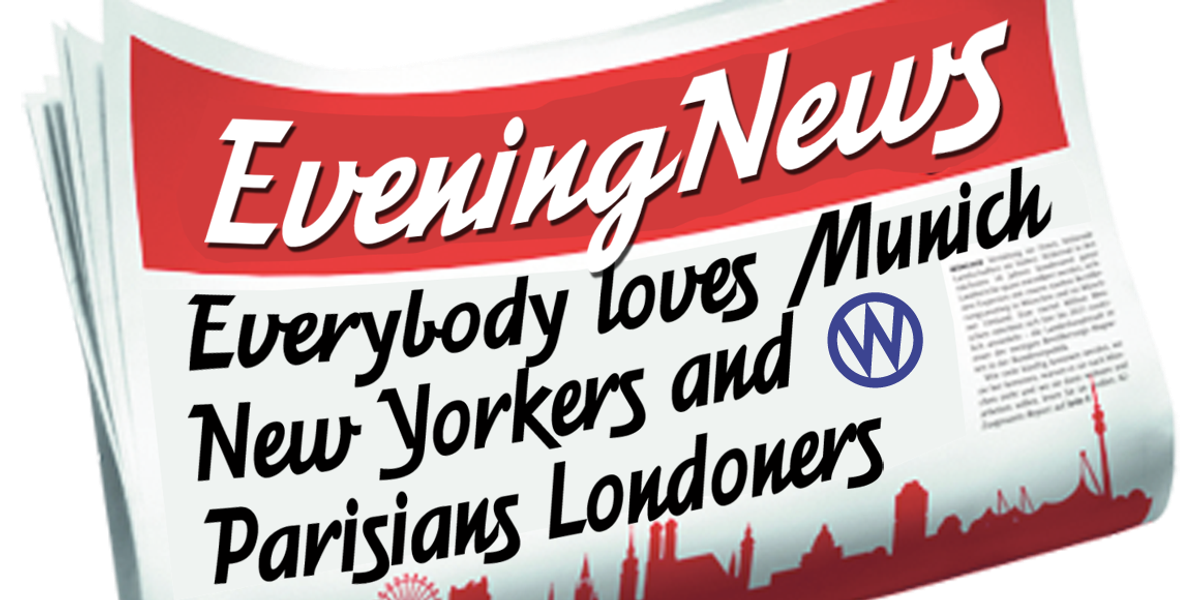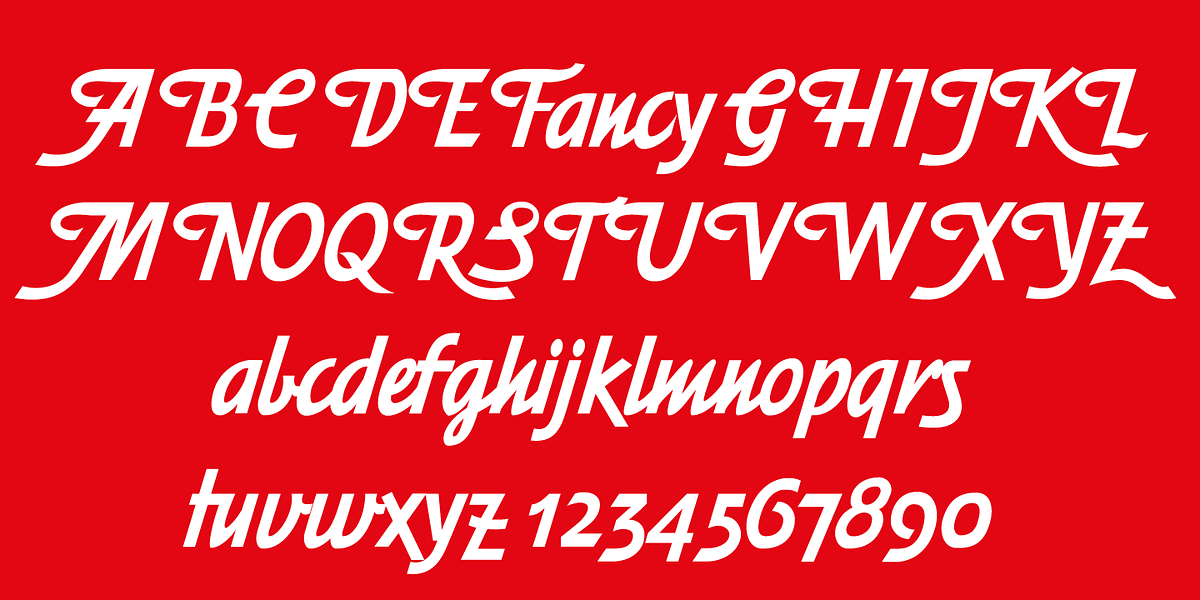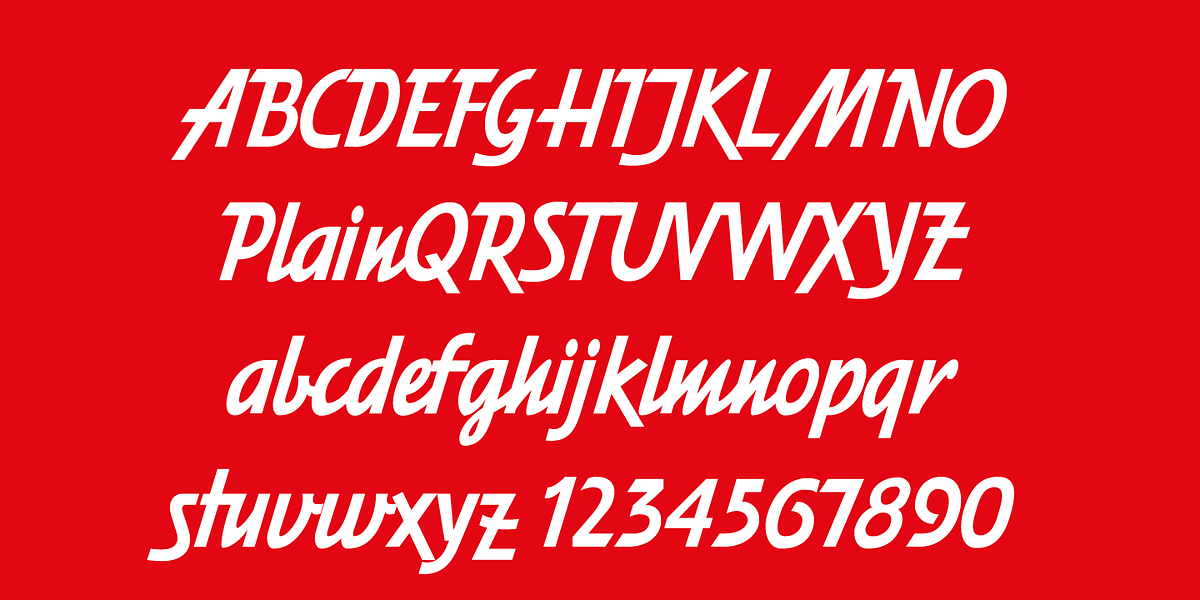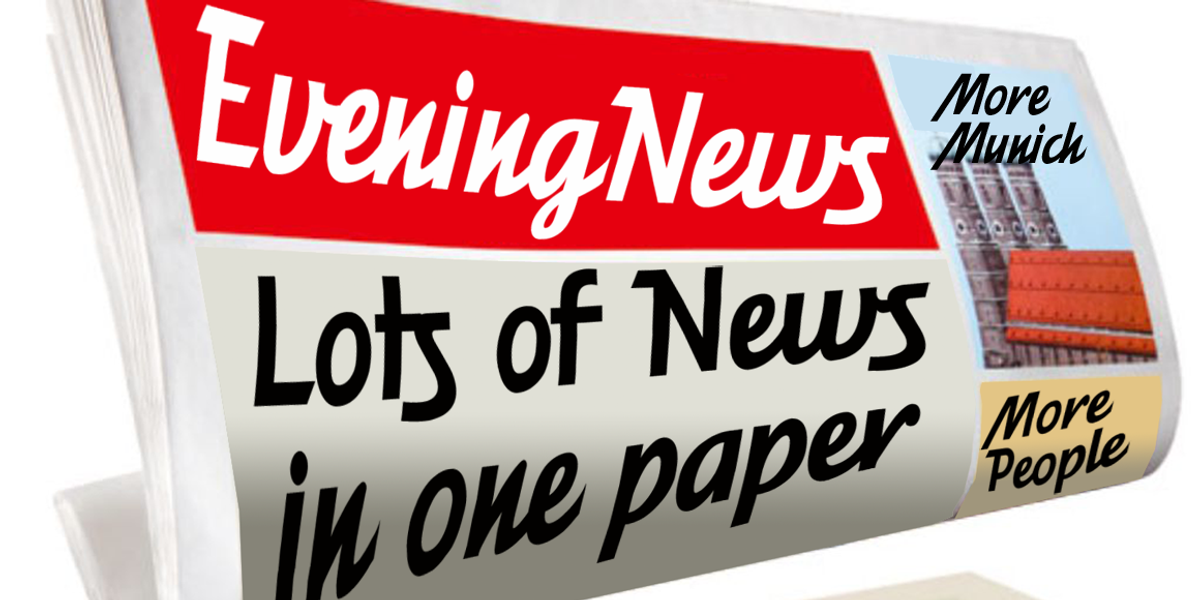
EveningNews
This typeface is a formal script with angular strokes and swashed capital letters, evoking a retro aesthetic reminiscent of the 1950s. Designed by Gert for use in newspaper headings, it carries a masculine and elegant personality.